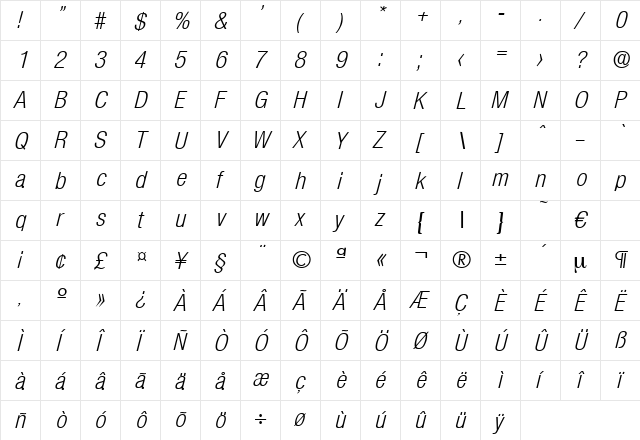
Olnova-RegularCondIta Regular
Design Context for Olnova-RegularCondIta Typeface
Olnova-RegularCondIta takes a measured approach to typography — its balanced proportions and neutral character make it a reliable workhorse for both digital and print work. Its narrow stance lets it pack a punch even in space-constrained designs.